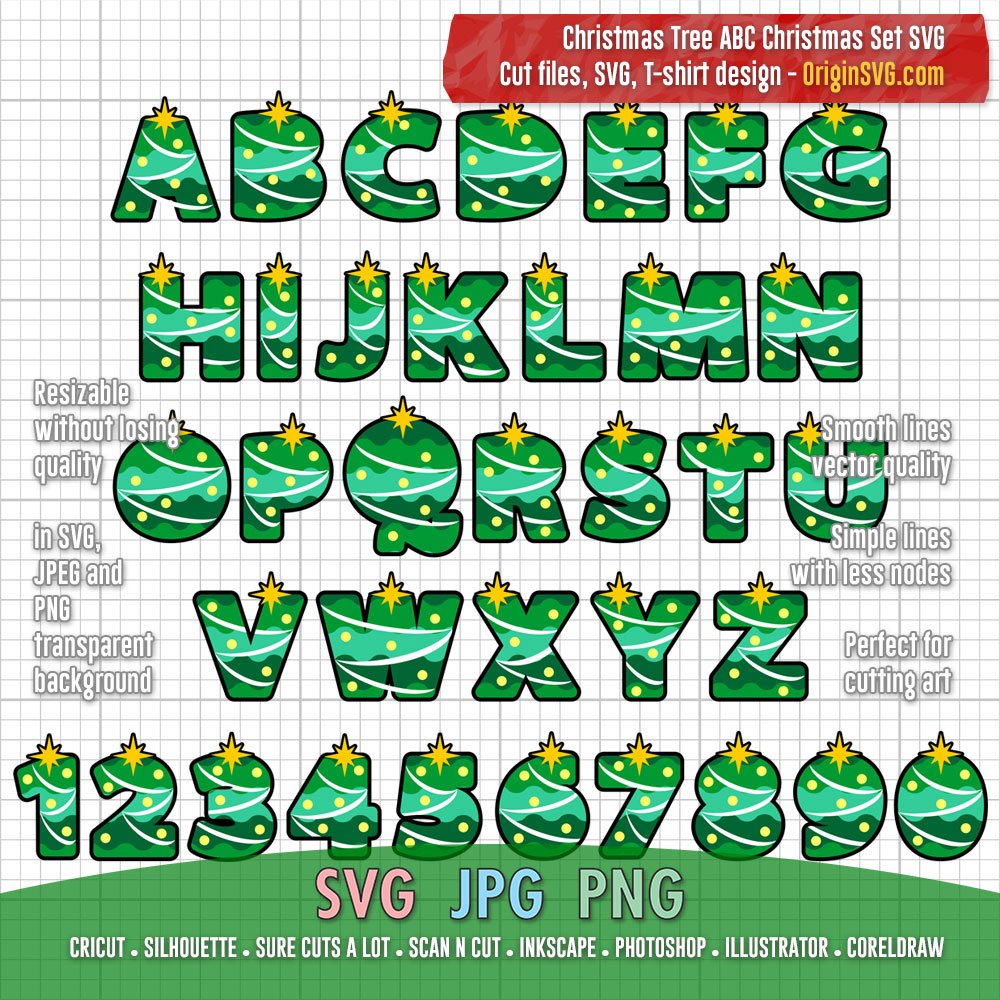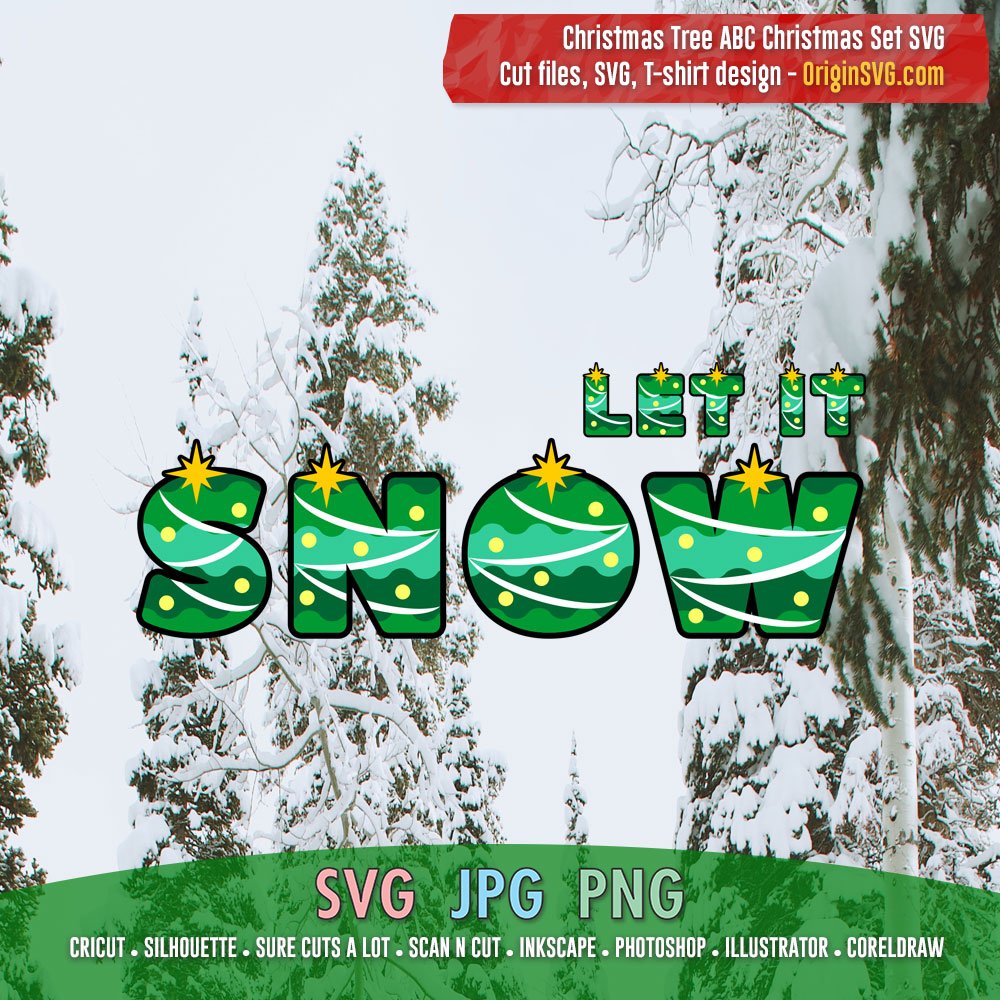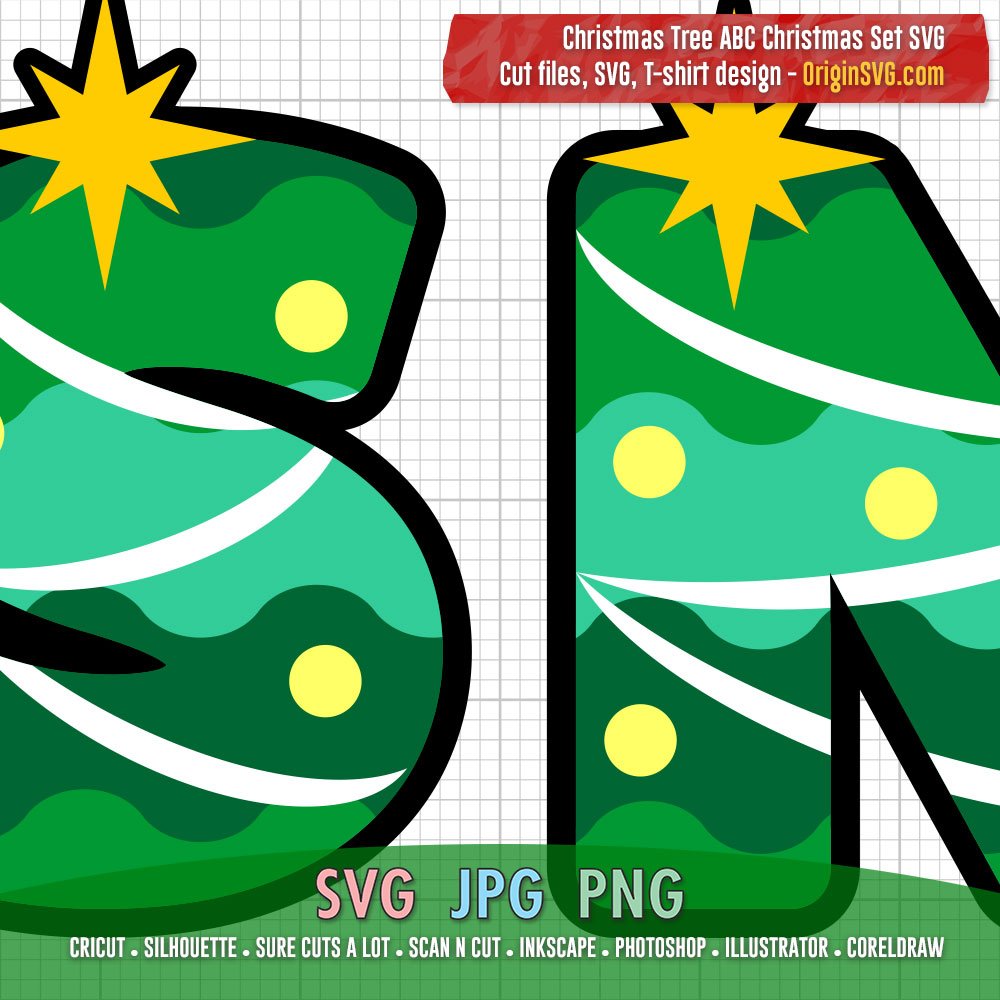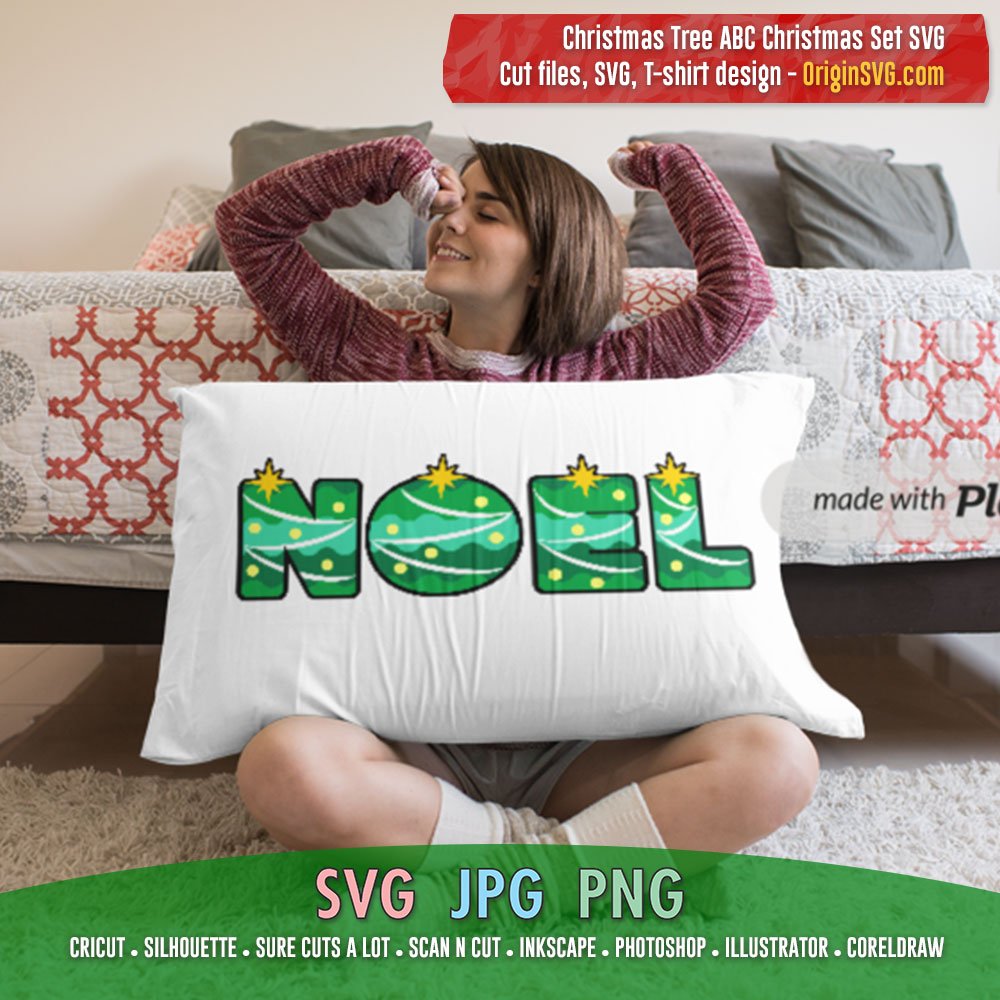
Christmas Tree Christmas Font Alphabet SVG
Font design for your design, saved individually, can be used in anything like greeting cards, signage, home decoration, stickers, t-shirt design, and many other. This is a bundle of SVG clip art alphabet including PNG and JPG files, contain all letters and numbers. Use this to make custom text for your art in Christmas Season.
- A to Z alphabet
- 0 to 9 numbers